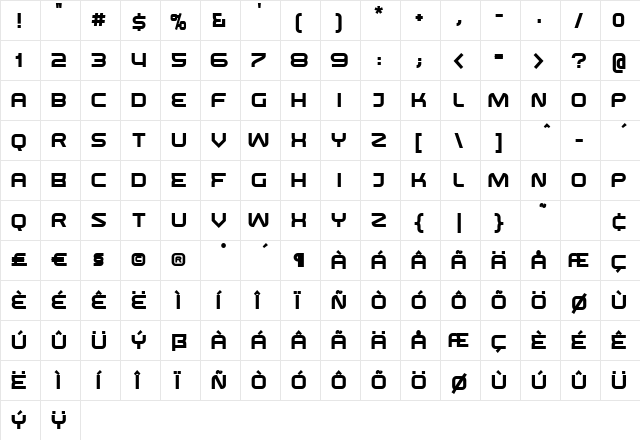
SwiszBold Regular
Design Context for SwiszBold Typeface
SwiszBold takes a measured approach to typography — its balanced proportions and neutral character make it a reliable workhorse for both digital and print work. Its bold stroke weight gives it real presence on the page.